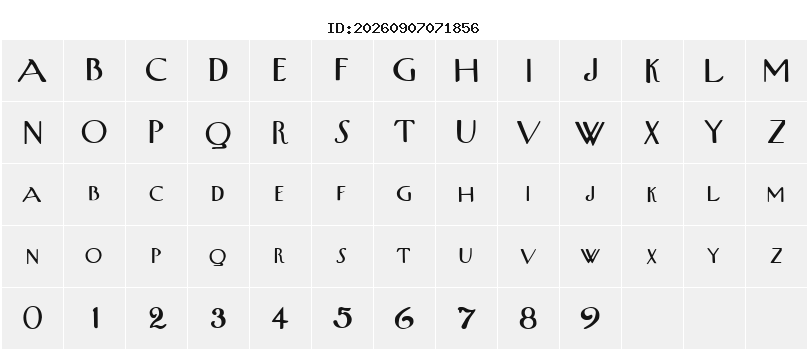
UppWe Preview
• Font Name: UppWe
• Font ID: Altsys Metamorphosis:UppWe Regular
• Full Font Name: UppWe Regular
• Version: Altsys Metamorphosis:3/8/92
• PostScript Name: UppWe Regular
• Character Count: 140
About UppWe.ttf
UppWe.ttf is a modern, elegant sans-serif font designed for ultimate readability and visual harmony. Perfect for branding, headlines, web design, and print materials.